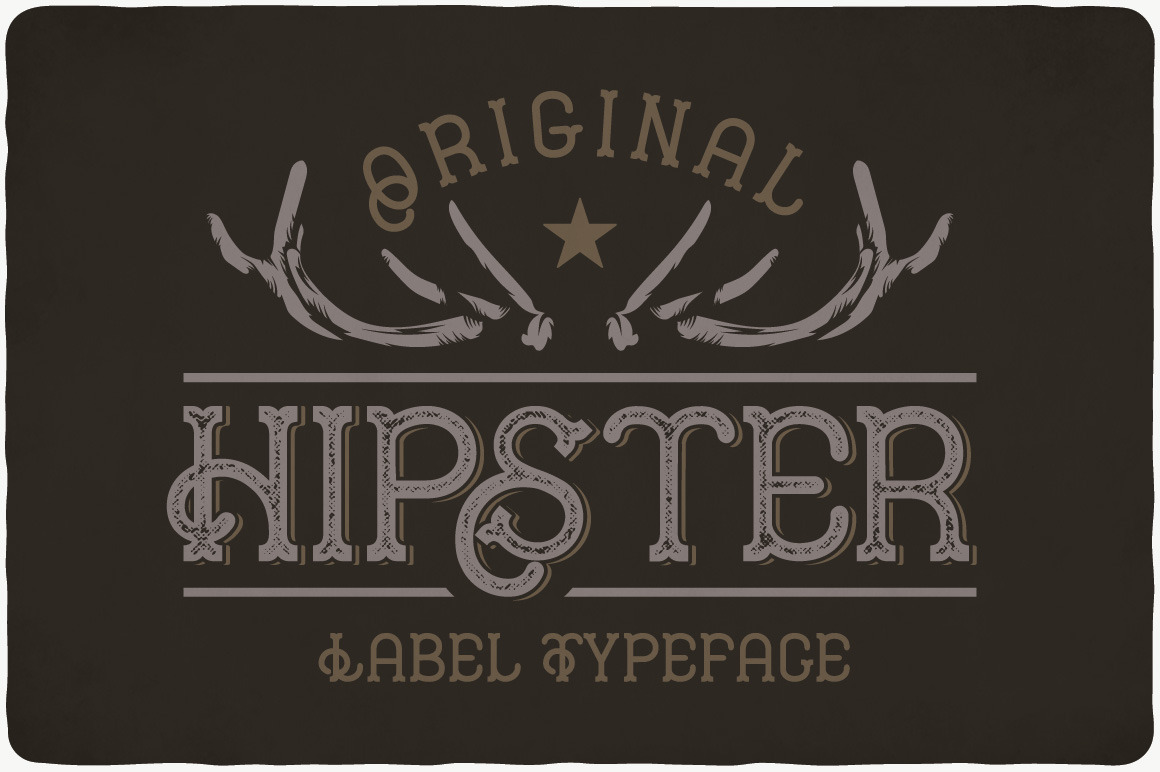
Hipster Typeface
Introducing a vintage look label typeface named "Hipster". This typeface contains layers - light and shadow, for sample look at 4th preview. Plus aged (distressed) version. Typeface is good viewed on any yours design.